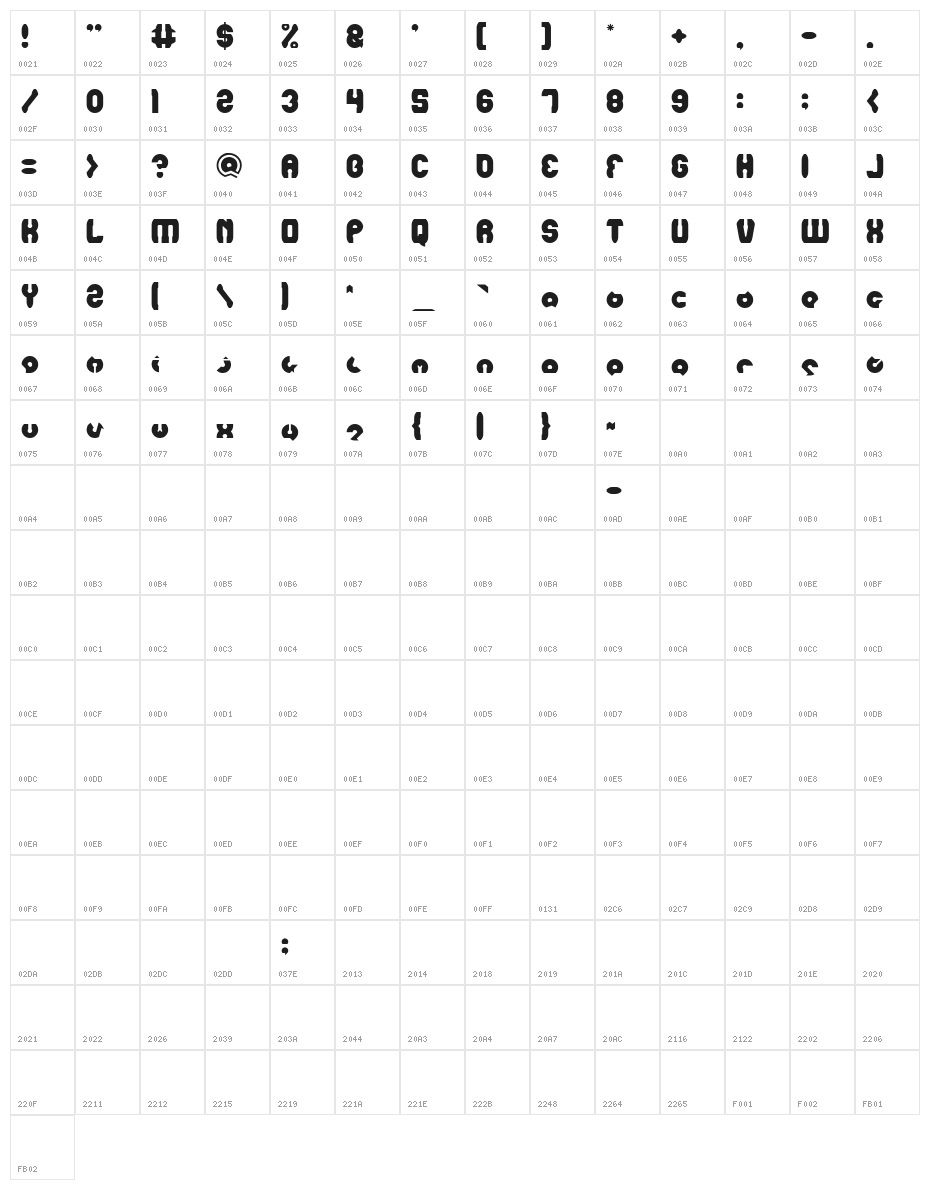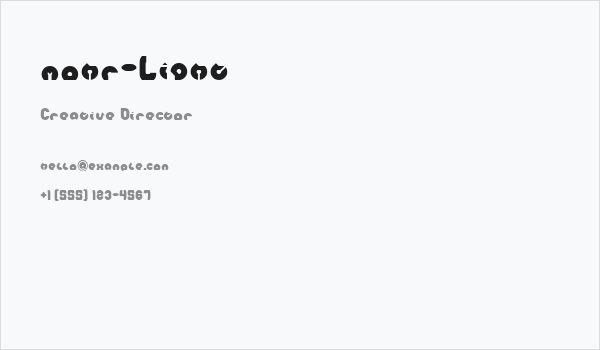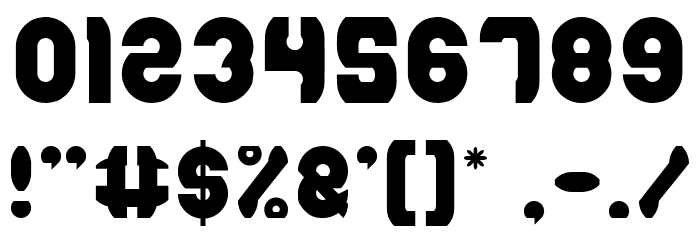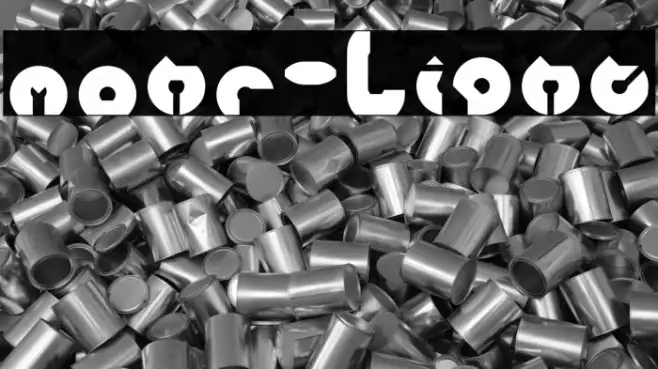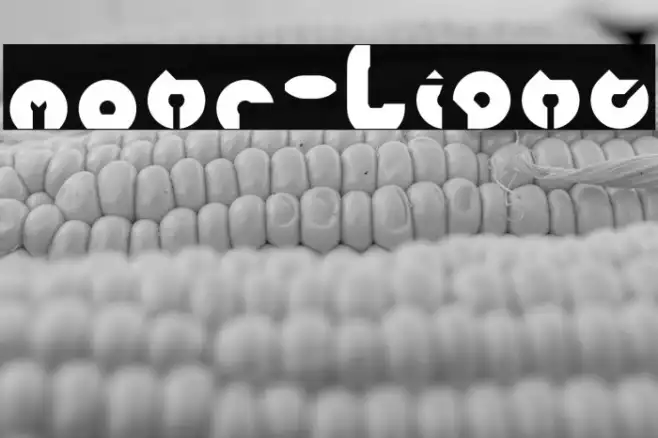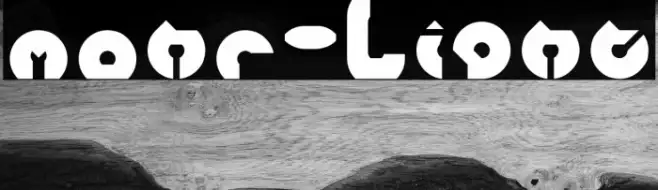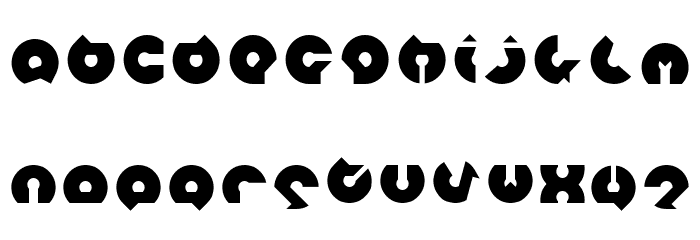
mohr-Light Font
mohr-Light Description
This font features a bold, geometric style with a unique blend of rounded and angular elements. The characters are heavily stylized, with thick strokes and minimal contrast, creating a strong visual impact. The uppercase letters are particularly distinctive, with some characters incorporating cut-out sections that add to the modern and edgy feel. The lowercase letters maintain the same boldness, ensuring consistency across the typeface. Numerals and special characters follow the same design principles, making this font suitable for attention-grabbing designs.
| Proposed Projects | Ideal for branding, poster design, and any project requiring a strong visual impact. |